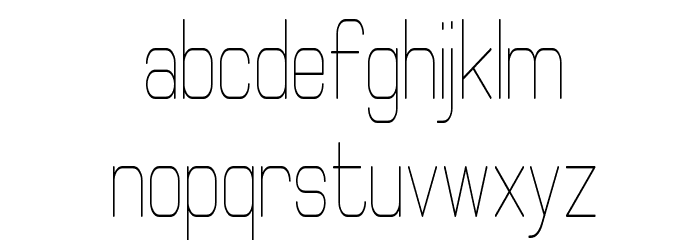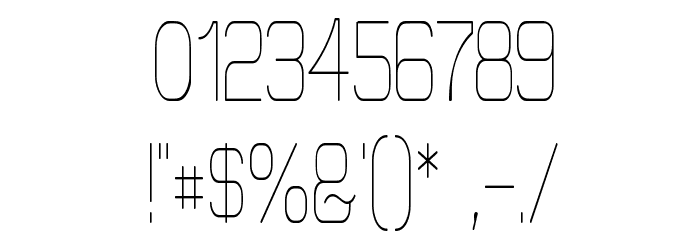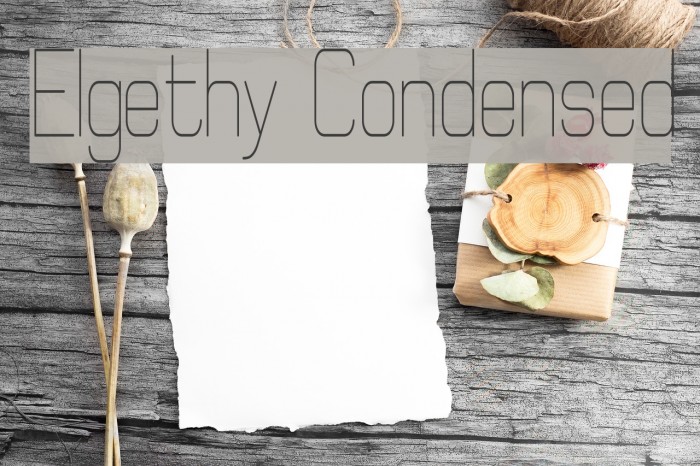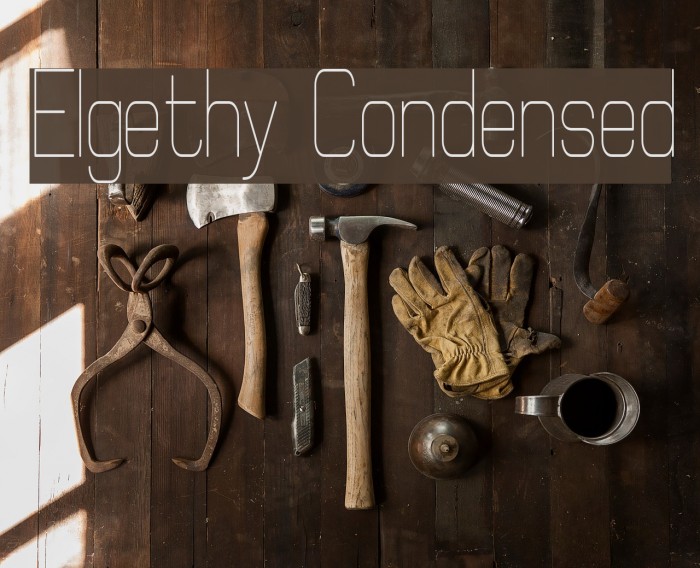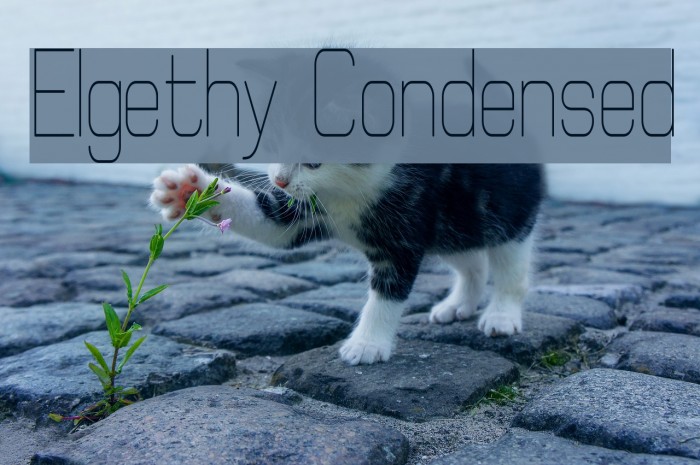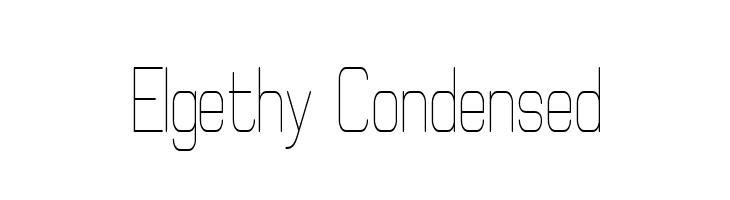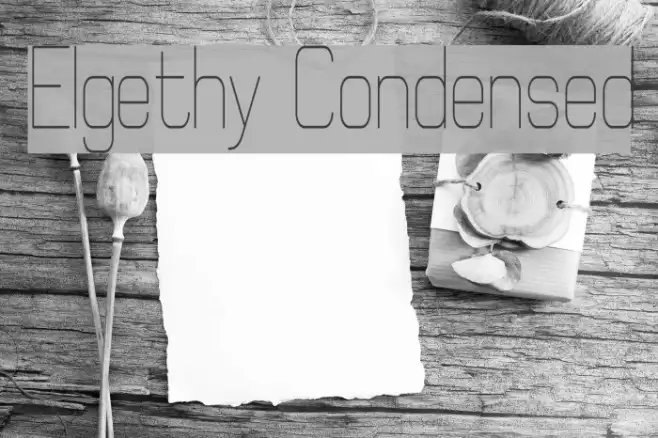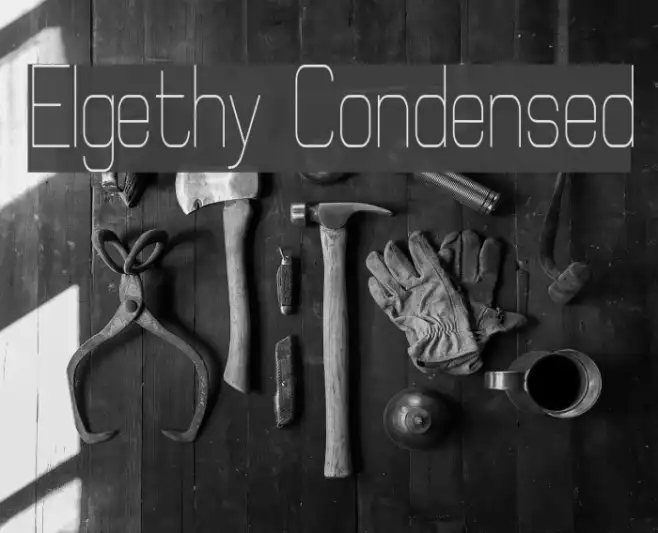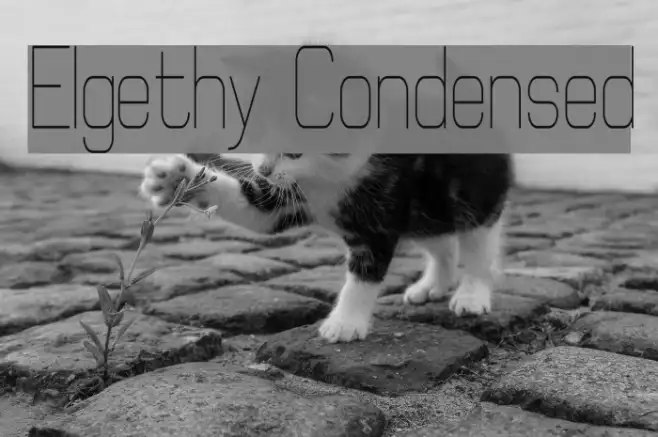
Elgethy Condensed Font
This font features a sleek, geometric design with a distinctly modern aesthetic. The characters are condensed, giving them a tall and narrow appearance, which contributes to a clean and efficient look. The lines are thin and uniform, providing a sense of precision and clarity. The uppercase and lowercase letters maintain a consistent style, with a minimalistic approach that emphasizes simplicity. The numerals and special characters are designed to match the overall aesthetic, ensuring a cohesive appearance across all elements. This font is ideal for projects that require a contemporary and professional look.
A modern, geometric, and condensed font with thin, uniform lines.
- Proposed Projects: Ideal for branding, editorial design, and digital interfaces where a modern and clean look is desired.